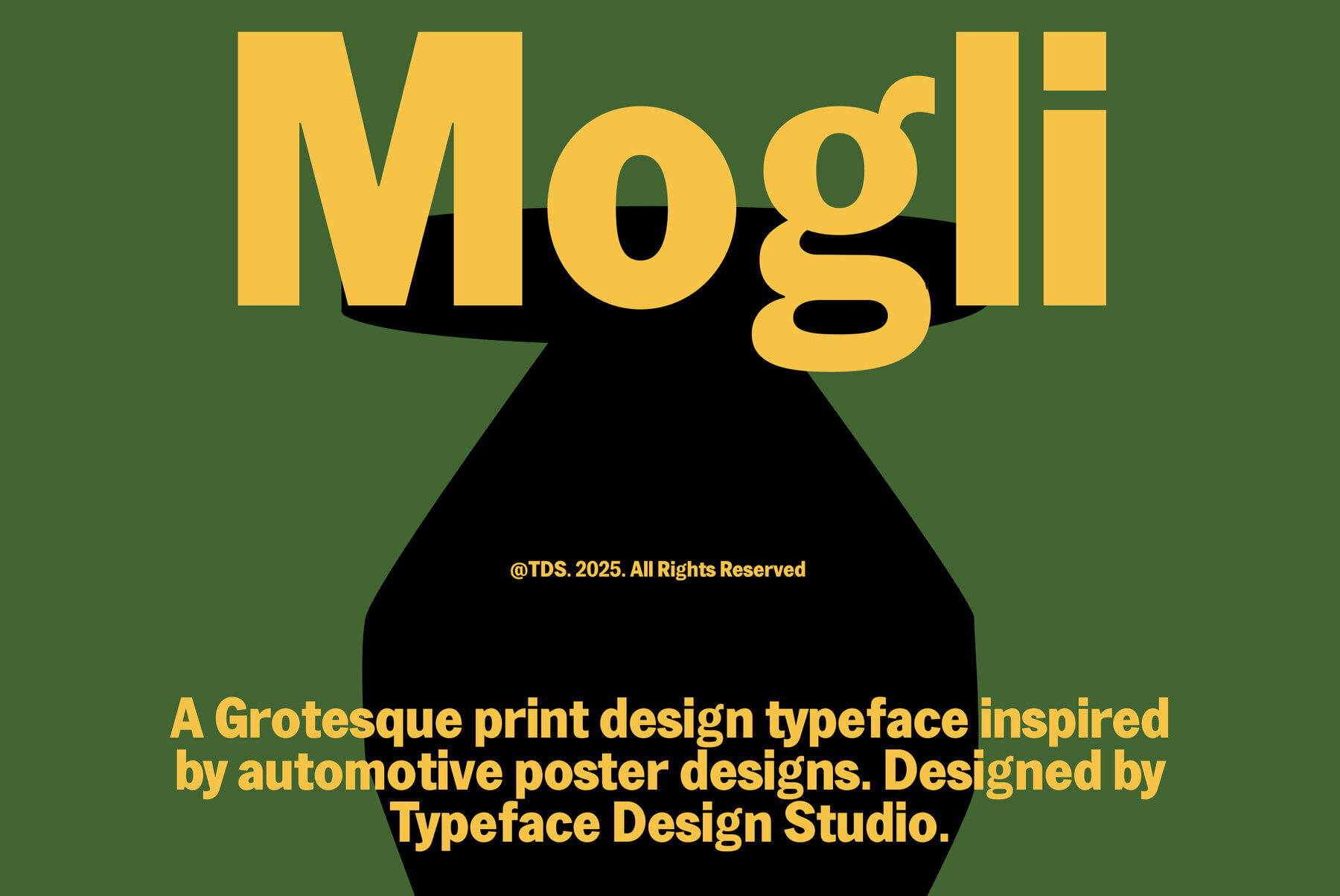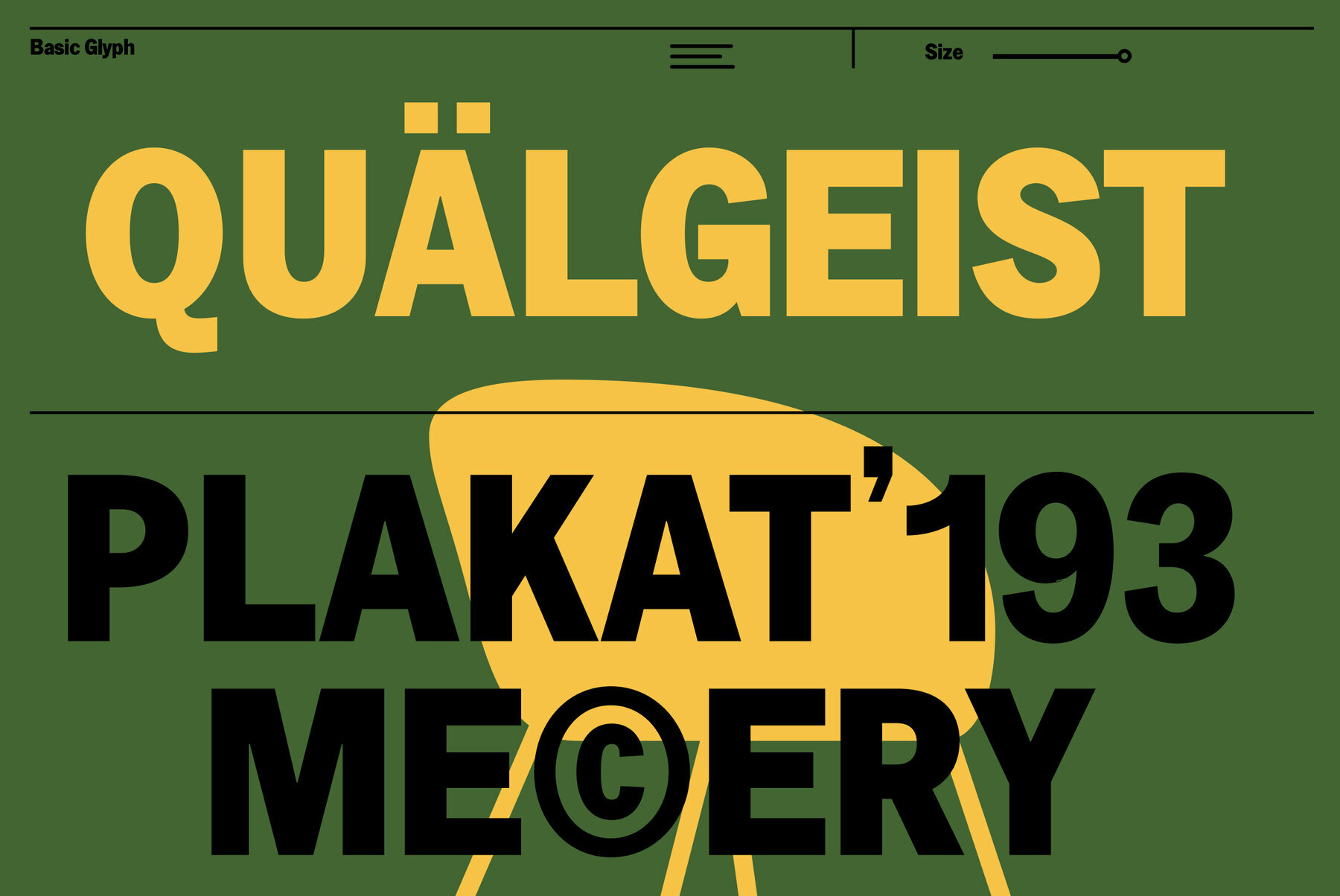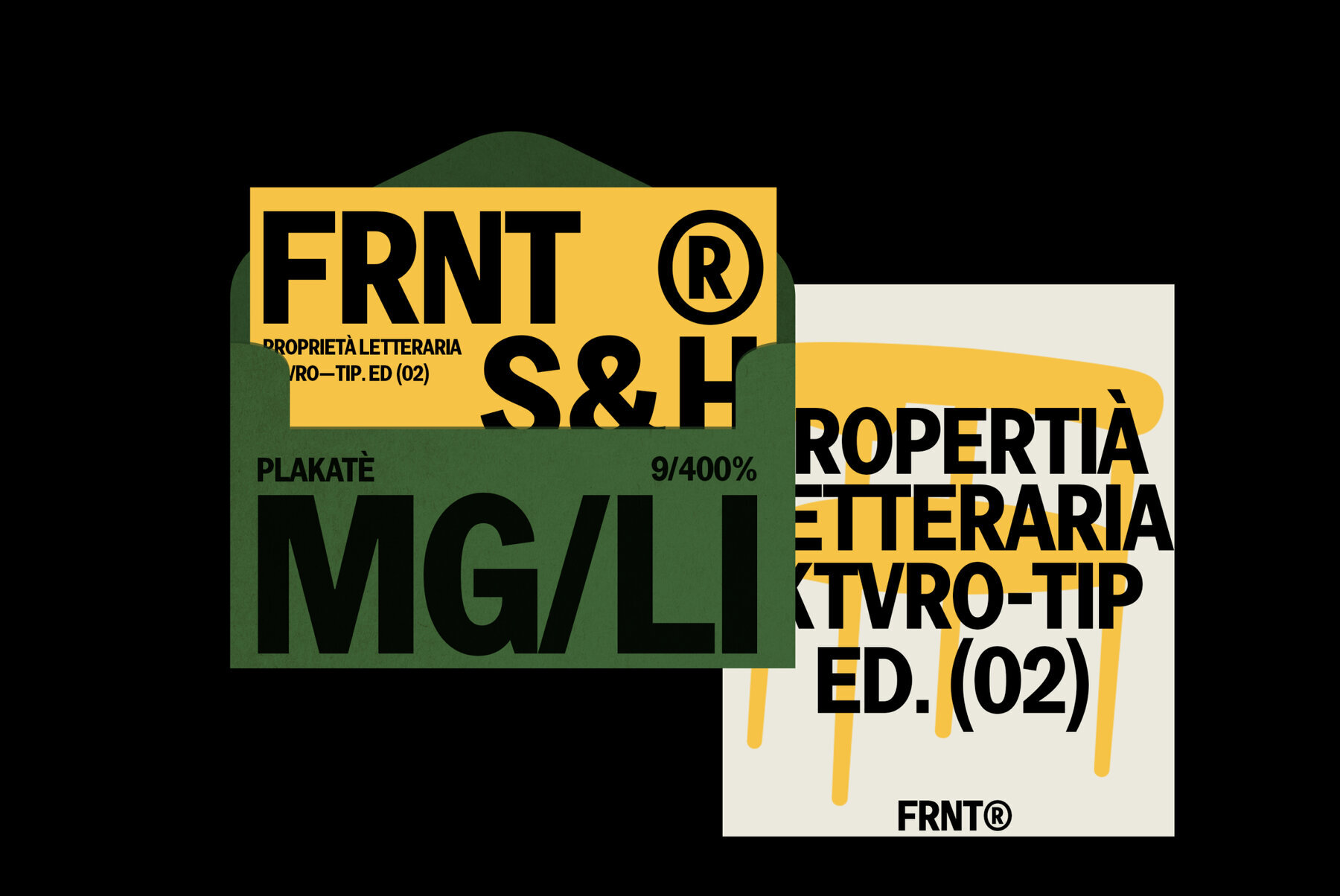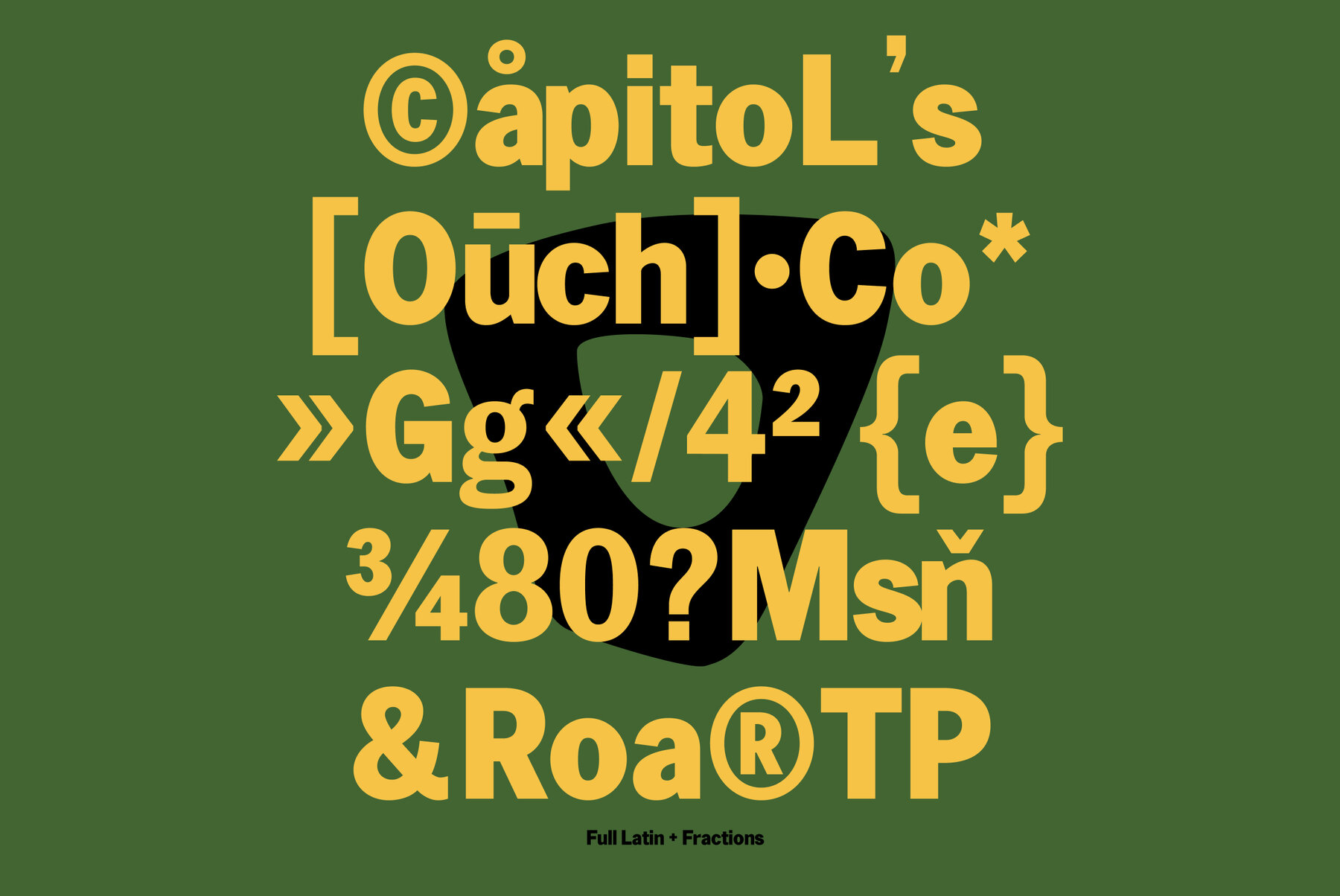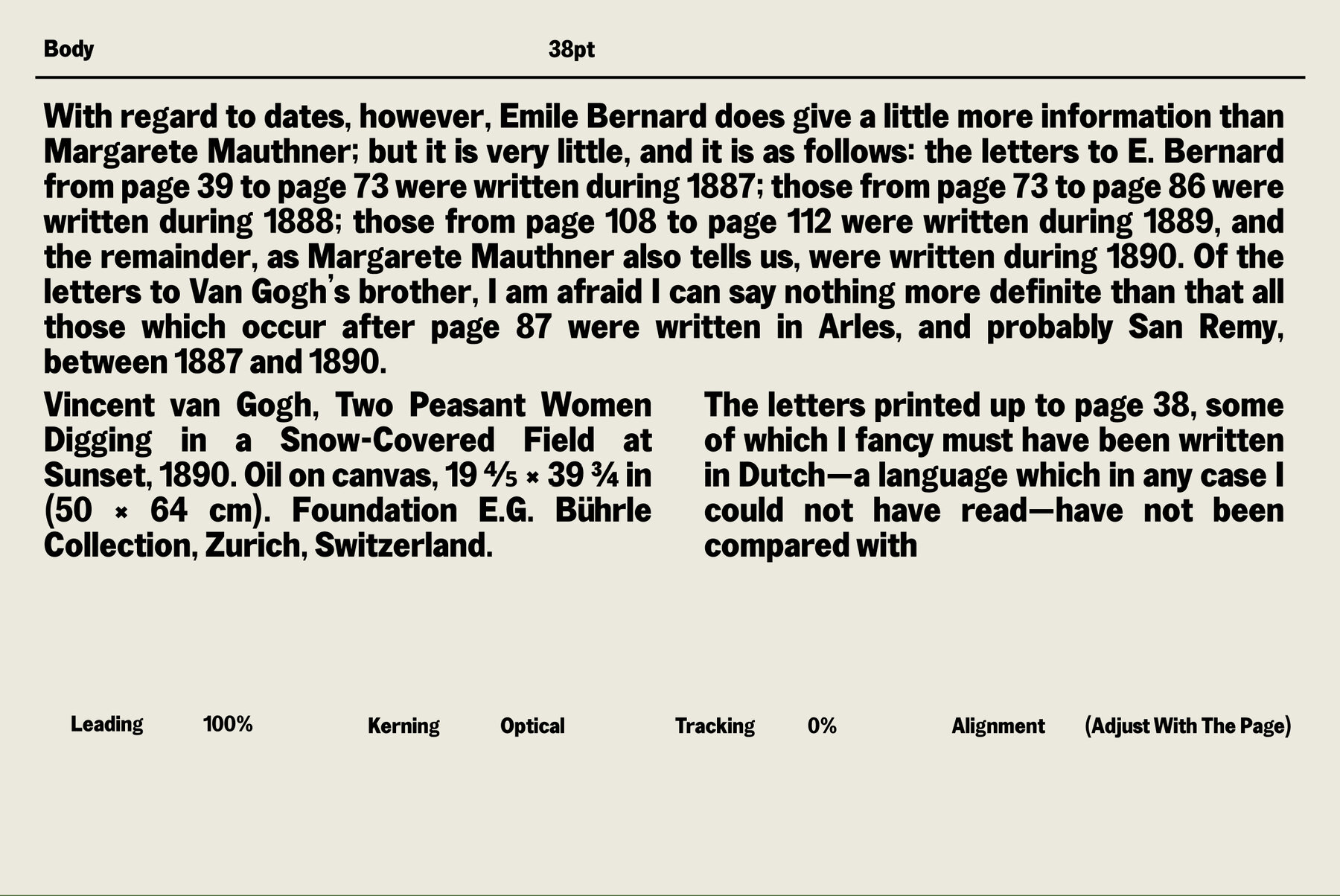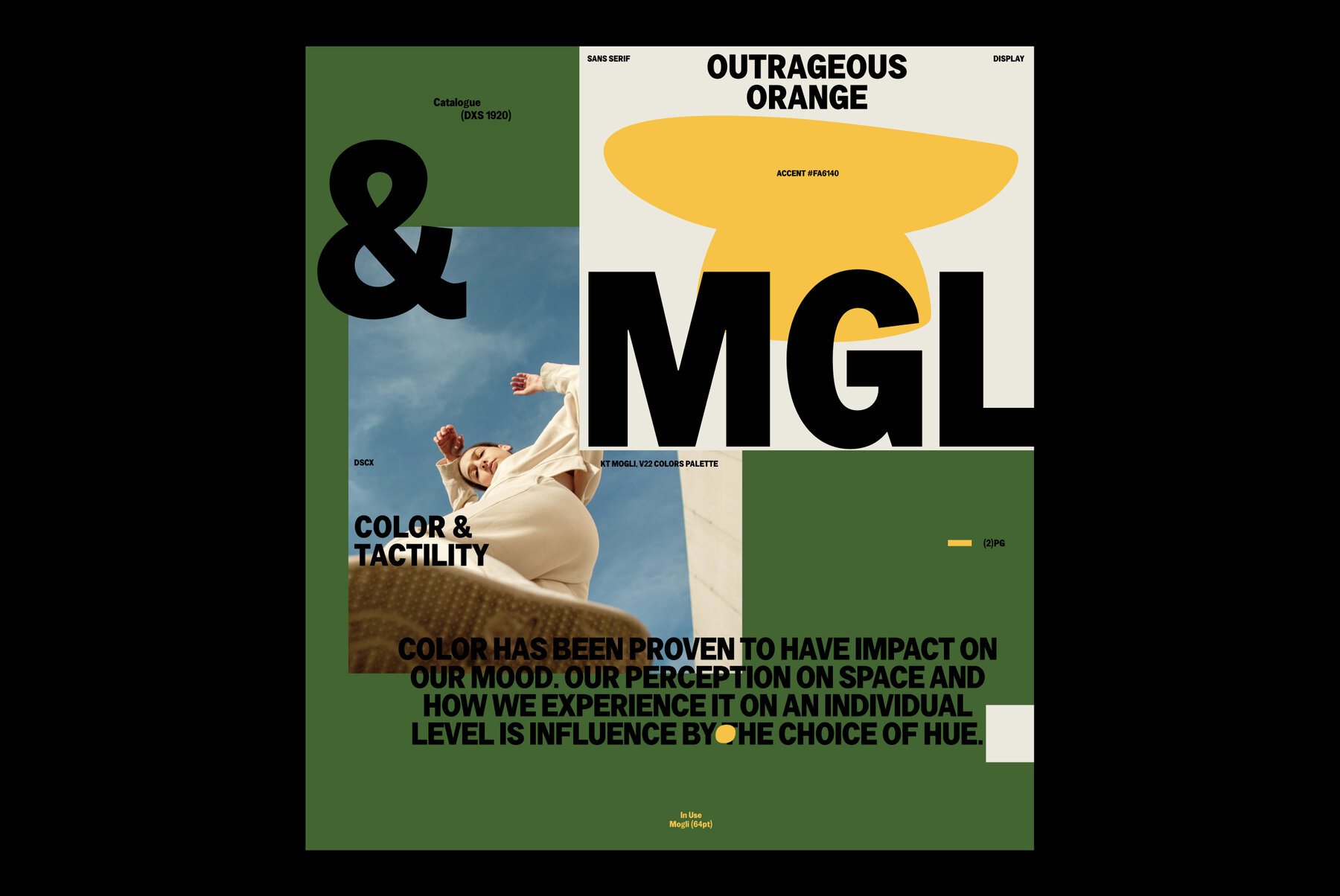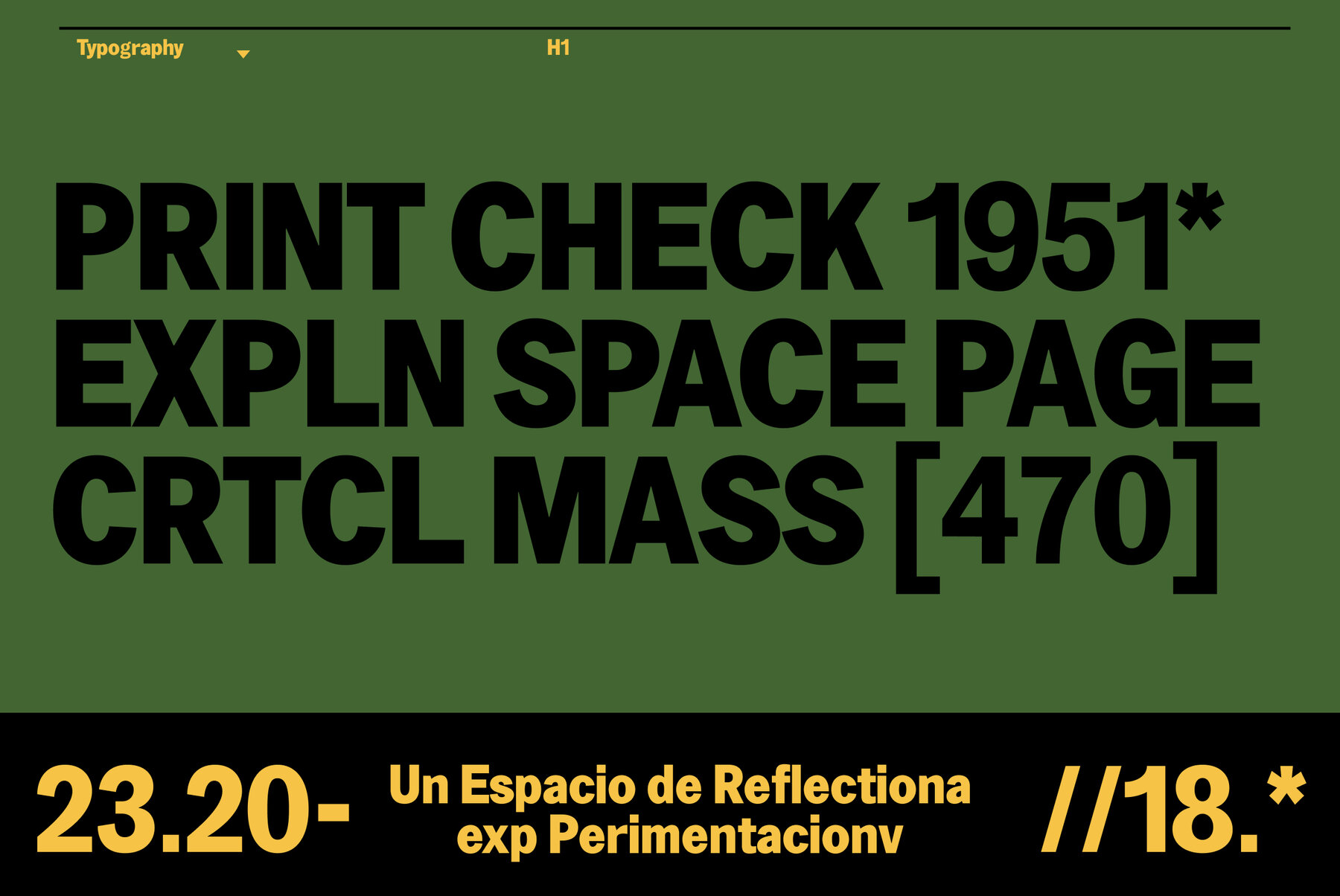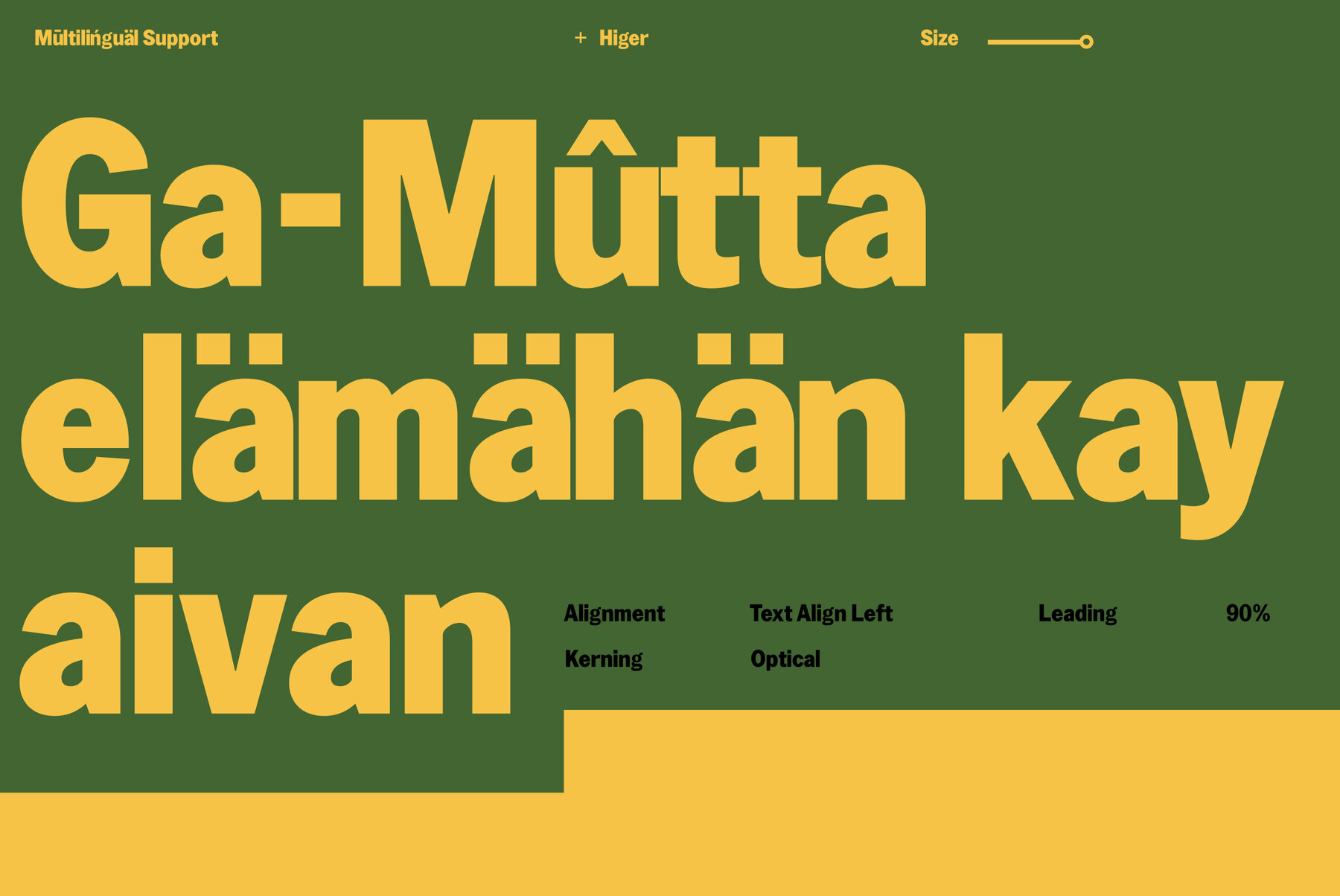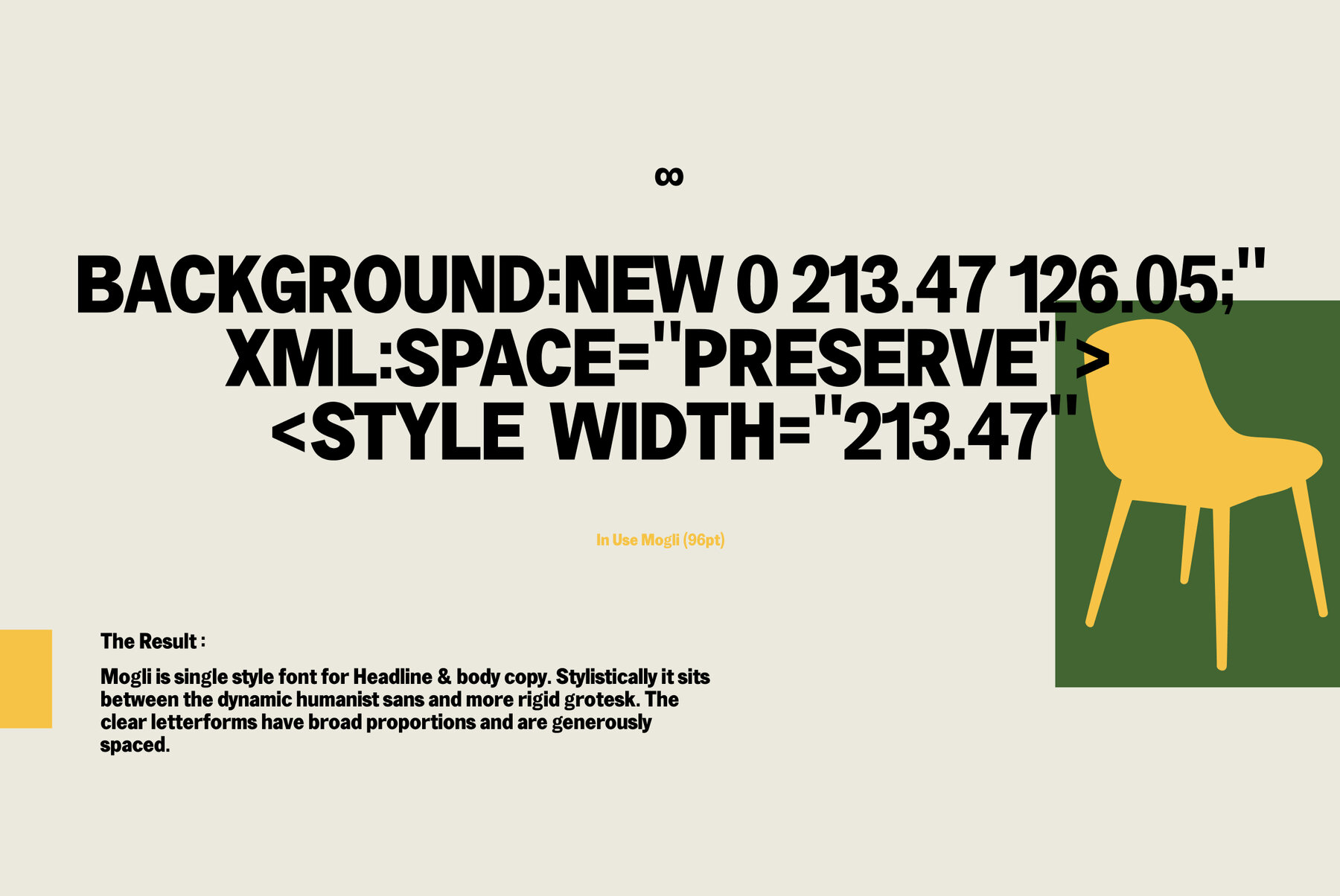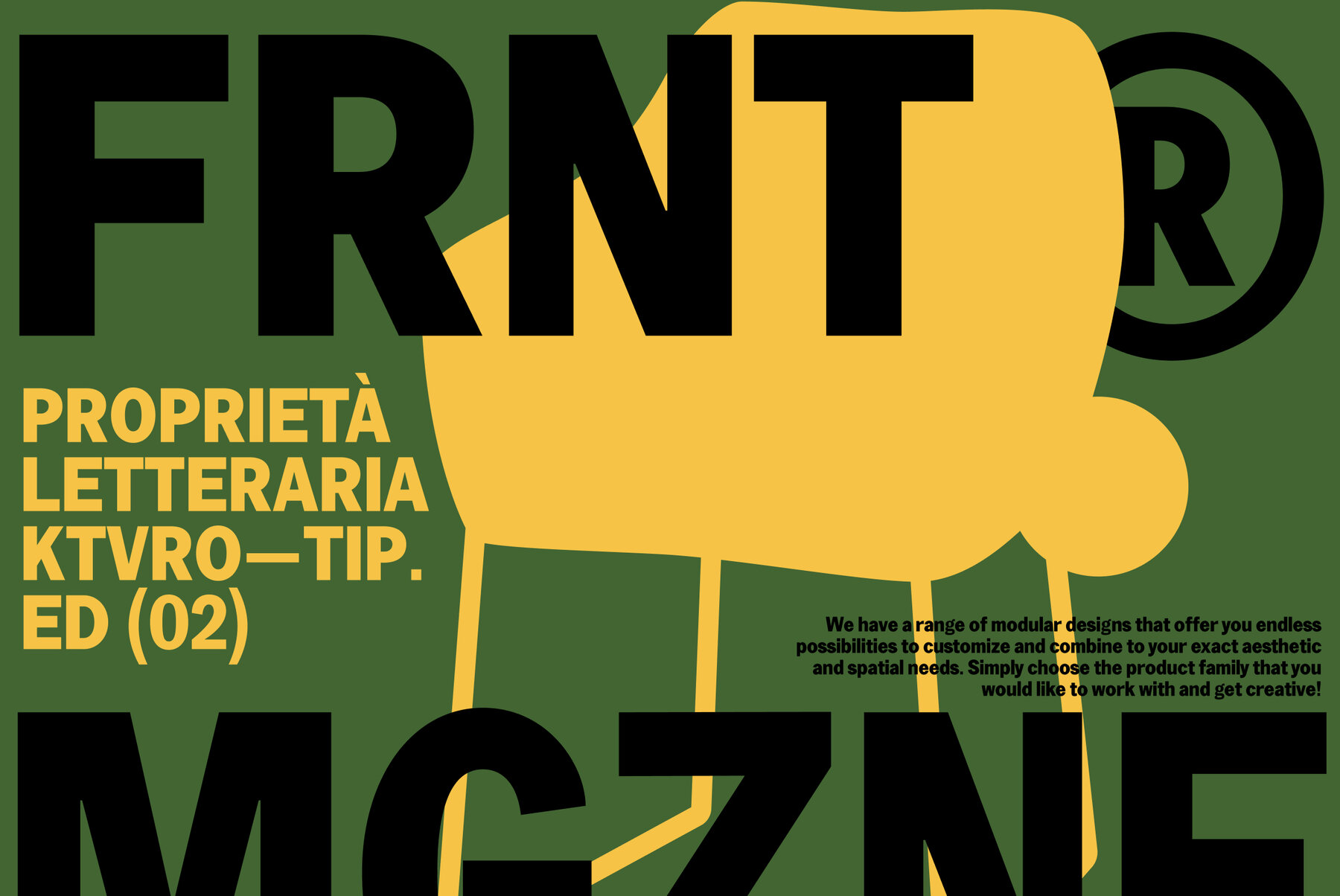
Mogli Font
Mogli Black
Mogli presents itself as a bold, sans-serif typeface drawing inspiration from the dynamic lines of automotive design. Its thick, blocky letterforms provide an appearance of strength and impact, making it an ideal choice for both poster and UI projects. This geometric typeface with oversized characters is crafted to deliver a modern and assertive feel, perfect for making high-impact headlines and creating standout brand identities. Whether your project spans digital or print media, Mogli's versatile nature ensures that your message is communicated with clarity and authority, capturing attention and leaving a lasting impression. Its design articulates both modernity and boldness, making it a statement piece in any visual application.Mogli: Bold Sans-Serif with Automotive Vibes